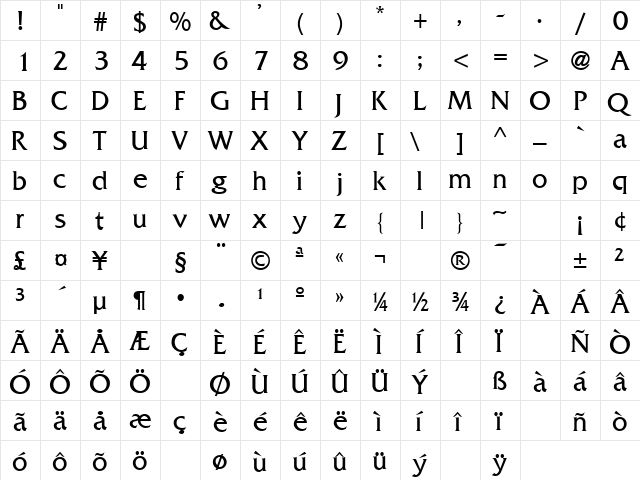
Keep Talking 6 Normal
Keep Talking 6 is a composed and adaptable typeface that performs quietly and consistently across a wide range of design contexts.